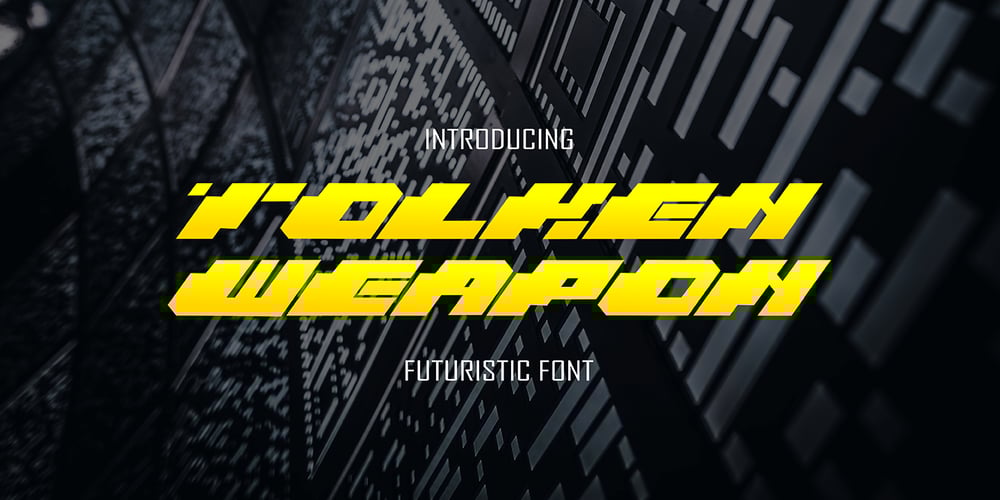
Tolken Weapon
Tolken Weapon font
Tolken Weapon Font Family was designed by Sipanji and published by Sipanji21. Tolken Weapon contains 1 styles and family package options. Tolken Weapon is Powerful Racing Theme Font. The font is ready to be used for your racing sports or automotive-related projects.Built to be perfect for headlines, jerseys, logos, branding, posters, packaging, advertising, and much more.